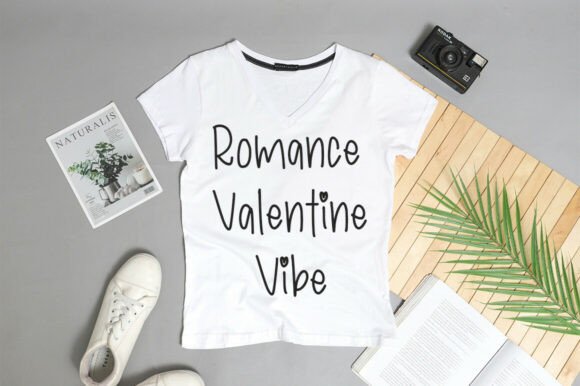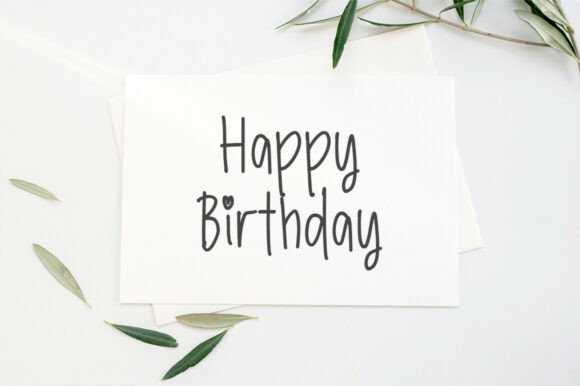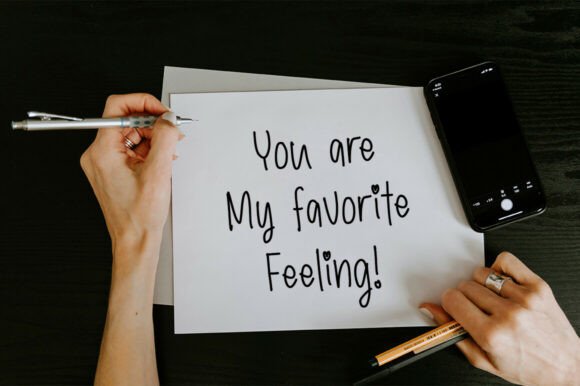
Bloomline Font: The Whimsical Typeface for Organic and Botanical Designs
Are you a designer or crafter looking for a unique and charming typeface to elevate your projects? Look no further than the Bloomline font, a whimsical and slender typeface that evokes the feeling of a garden in spring. With its organic feel and handmade charm, Bloomline is the perfect choice for floral shops, organic food packaging, botanical illustrations, and more.
The Unique Characteristics of Bloomline Font
One of the standout features of the Bloomline typeface is its unique character heights. Unlike traditional typefaces, Bloomline features characters of varying heights, giving it a playful and whimsical feel. This unique feature adds visual interest to any project and sets Bloomline apart from other typefaces.
Another distinctive feature of Bloomline is its charming heart accent. This sweet and subtle detail adds a “handmade with love” feel to any project, making it perfect for designers and crafters who want to infuse their work with a personal touch. The heart accent is a thoughtful touch that adds a layer of warmth and personality to the typeface.
Ideal for Organic and Botanical Designs
Bloomline font is specifically designed with organic and botanical designs in mind. Its thin, delicate lines make it feel lightweight and airy, perfect for layering over photography or using in minimalist layouts where white space is key. The typeface’s slender lines also evoke the feeling of petals and leaves, making it a natural fit for floral shops, botanical illustrations, and organic food packaging.
Whether you’re designing a label for a local flower shop, creating a logo for an organic food brand, or illustrating a botanical garden, Bloomline font is the perfect choice. Its unique character heights and charming heart accent add a touch of whimsy and personality to any project, making it stand out from the crowd.
Using Bloomline Font in Your Designs
One of the best things about Bloomline font is its versatility. It can be used in a variety of design applications, from digital projects to print materials. Here are a few ideas for using Bloomline font in your designs:
- Floral shop branding: Use Bloomline font to create a logo or label for a local flower shop. The typeface’s delicate lines and charming heart accent evoke the feeling of fresh flowers and add a touch of whimsy to any design.
- Organic food packaging: Bloomline font is a great choice for organic food packaging, as it adds a touch of personality and whimsy to any design. Use it to create labels, packaging, or even a website for an organic food brand.
- Botanical illustrations: Bloomline font is a natural fit for botanical illustrations, as it evokes the feeling of leaves and petals. Use it to add a title or caption to your illustrations, or to create a logo for your illustration business.
- Stationery and paper goods: Bloomline font is also a great choice for stationery and paper goods, such as greeting cards, invitations, and stickers. Its delicate lines and charming heart accent add a touch of personality to any design.
Why Choose Bloomline Font?
So why choose Bloomline font for your next design project? Here are just a few reasons:
- Unique and charming: Bloomline font is a one-of-a-kind typeface that adds a touch of whimsy and personality to any design.
- Versatile: Bloomline font can be used in a variety of design applications, from digital projects to print materials.
- Easy to read: Despite its delicate lines, Bloomline font is easy to read, making it perfect for body text or headlines.
- Handmade feel: The charming heart accent and unique character heights give Bloomline font a handmade feel that’s perfect for designers and crafters who want to infuse their work with a personal touch.
In conclusion, Bloomline font is a whimsical and charming typeface that’s perfect for organic and botanical designs. Its unique character heights, charming heart accent, and delicate lines make it a standout choice for designers and crafters who want to add a touch of personality to their work. Whether you’re designing a label for a floral shop, creating a logo for an organic food brand, or illustrating a botanical garden, Bloomline font is the perfect choice.